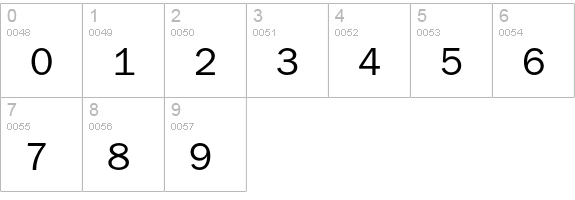
FranklinGothicEF-Book is a comfortable, highly readable variant in the FranklinGothicEF typeface family \xE2\x80\x94 well suited to long-form body text, articles, and editorial content.
Franklin Gothic EF Book is a classic and timeless font that exudes sophistication and elegance. With its clean lines and modern aesthetic, this font is versatile and perfect for a wide range of design projects. The Franklin Gothic EF Book font strikes the perfect balance between traditional and contemporary, making it a popular choice among designers and creatives. The best part? Franklin Gothic EF Book is available for free download at FontsMarket.com. Whether you're working on a branding project, editorial design, or any other creative endeavor, this font is sure to make a statement. Its sleek and professional look will elevate your designs and give them a polished finish. Don't miss out on the opportunity to add Franklin Gothic EF Book to your font collection. Download it for free today and take your designs to the next level with this stylish and versatile typeface.